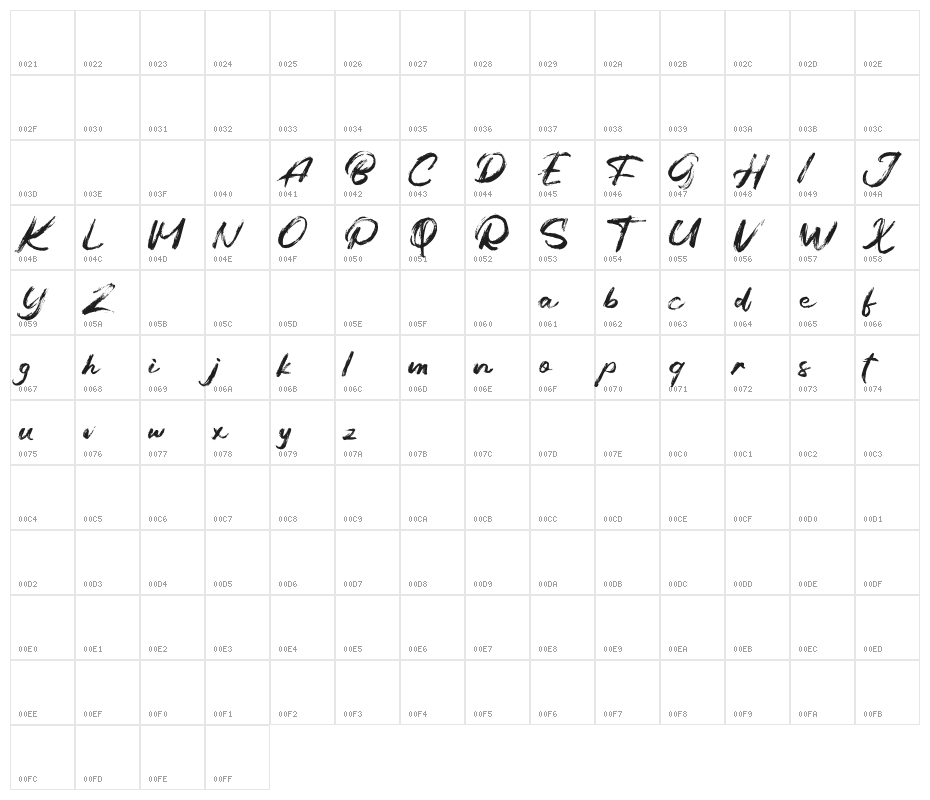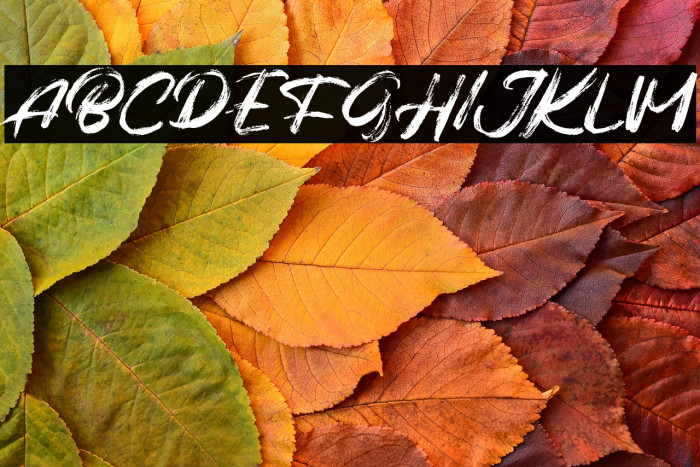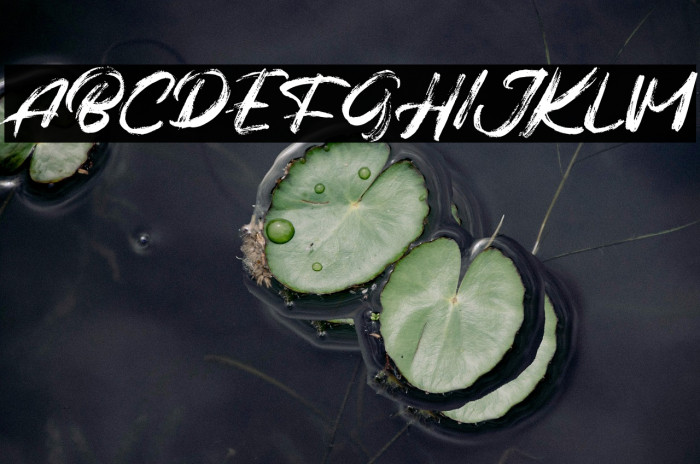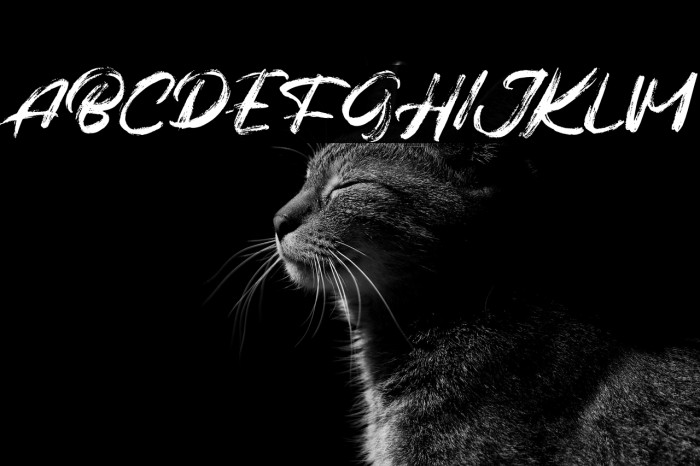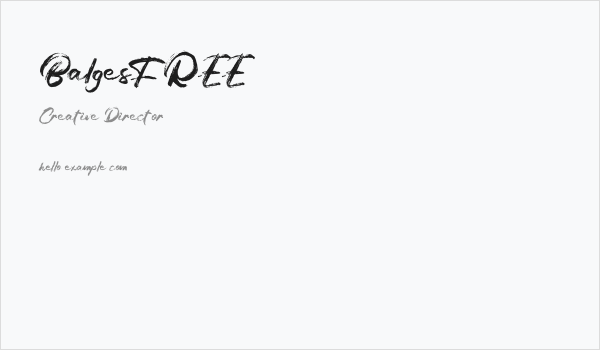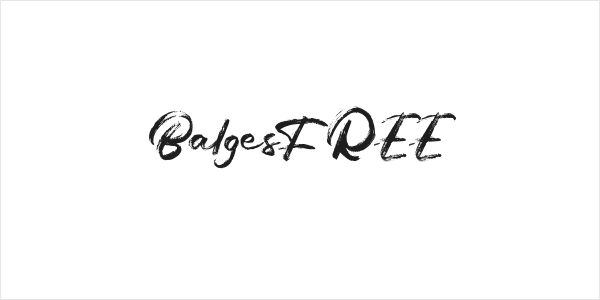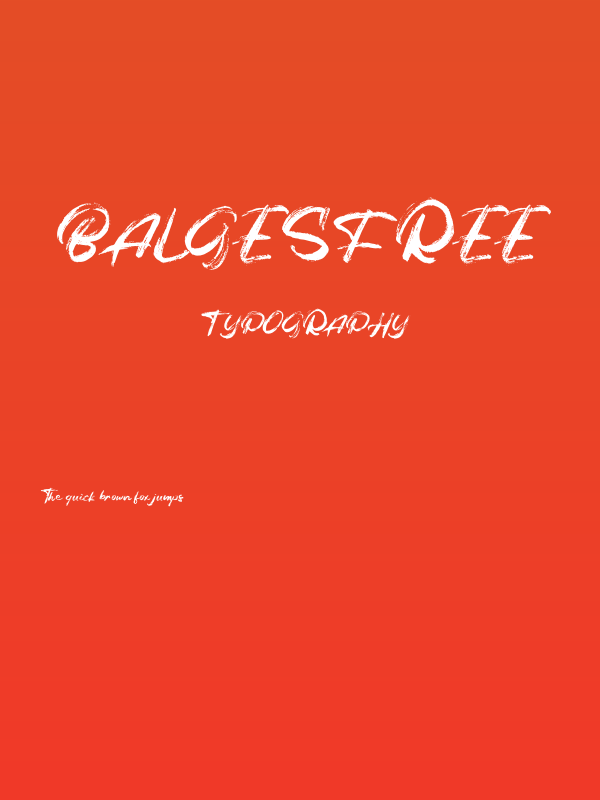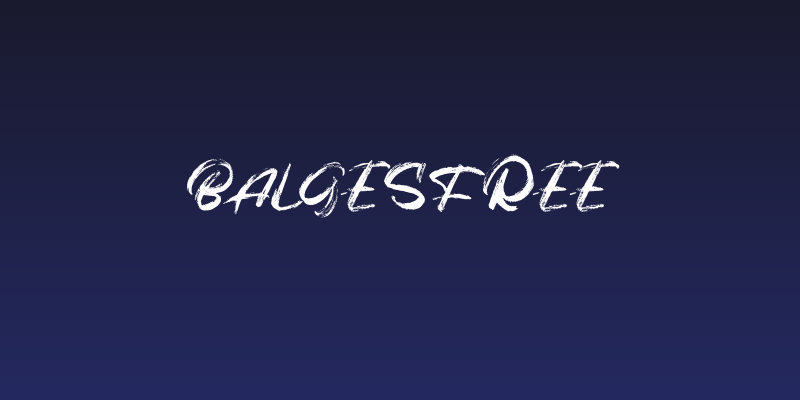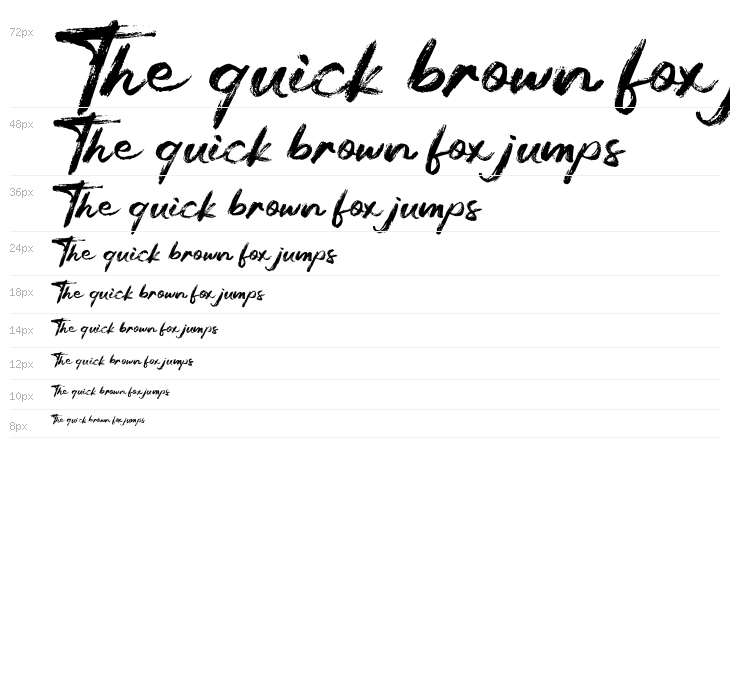
BalgesFREE Font
BalgesFREE Description
This font features a bold, expressive brush script style that exudes energy and dynamism. The strokes are thick and textured, resembling hand-painted lettering with a slightly rough edge, giving it an authentic and artistic feel. The characters are connected in a fluid manner, enhancing the script's natural flow and rhythm. This font is ideal for making a statement, with its high contrast and distinctive appearance. It captures attention with its bold presence and artistic flair, making it suitable for creative and impactful designs.
| Use Case | Logos, Headlines, Posters |
| Proposed Projects | Ideal for branding, posters, artistic projects, and any design needing a bold, creative touch. |